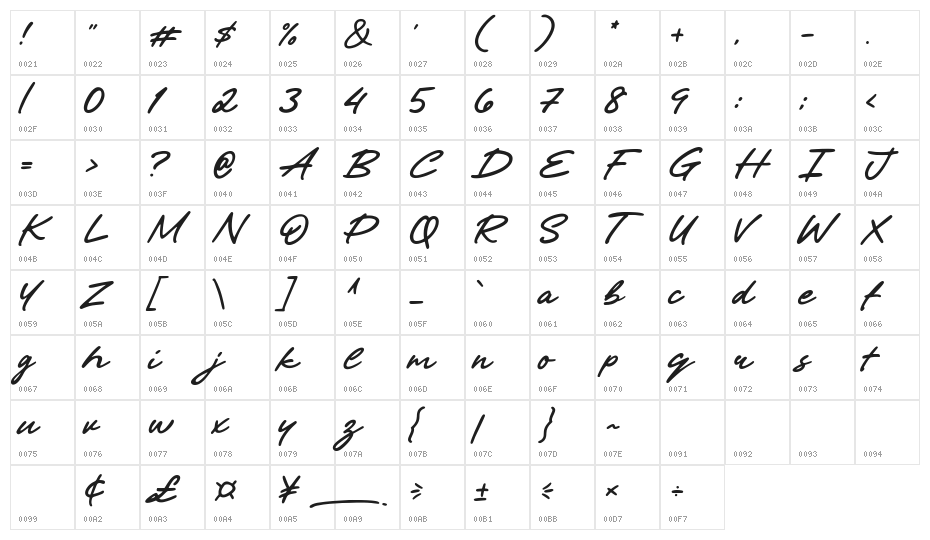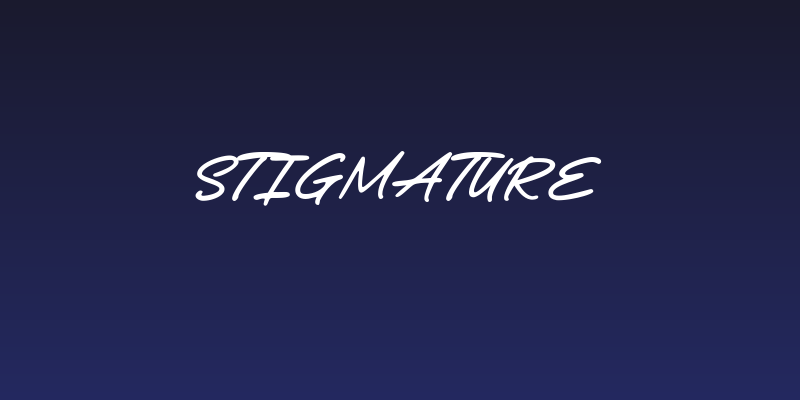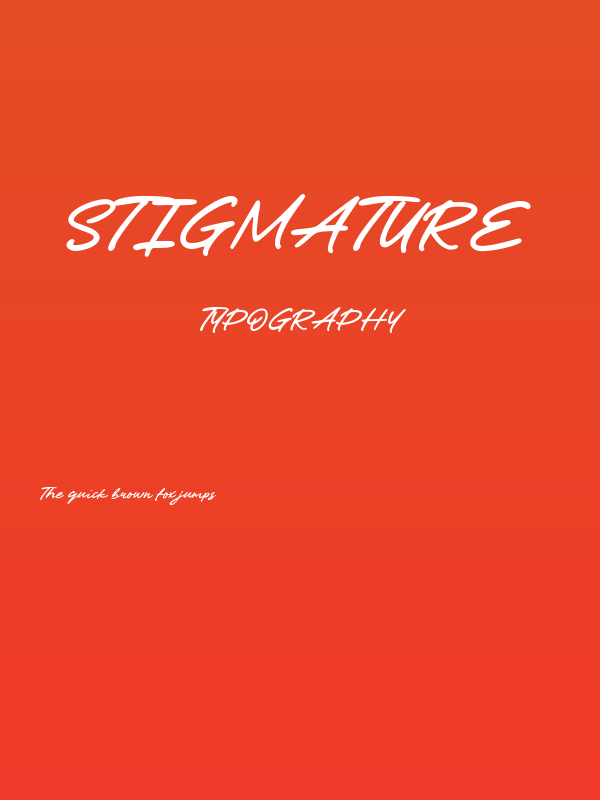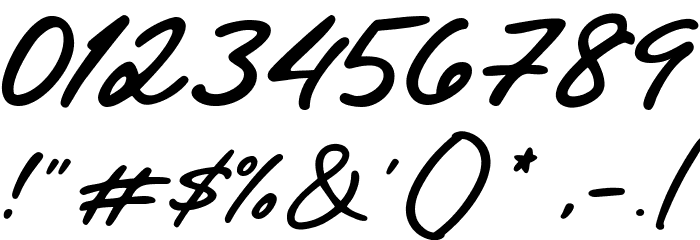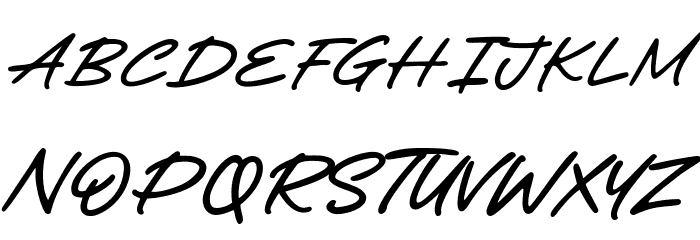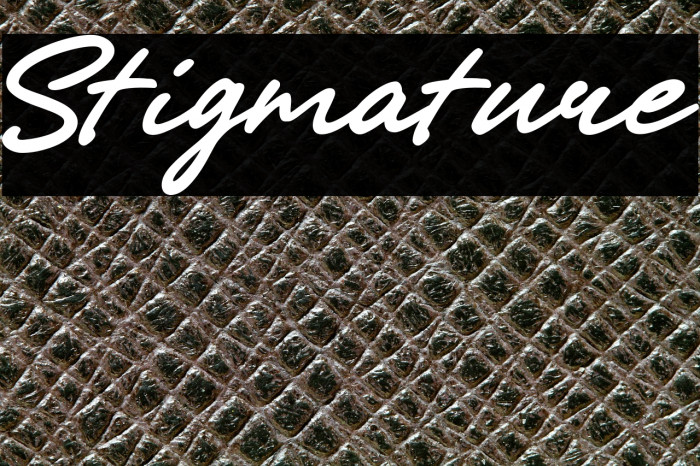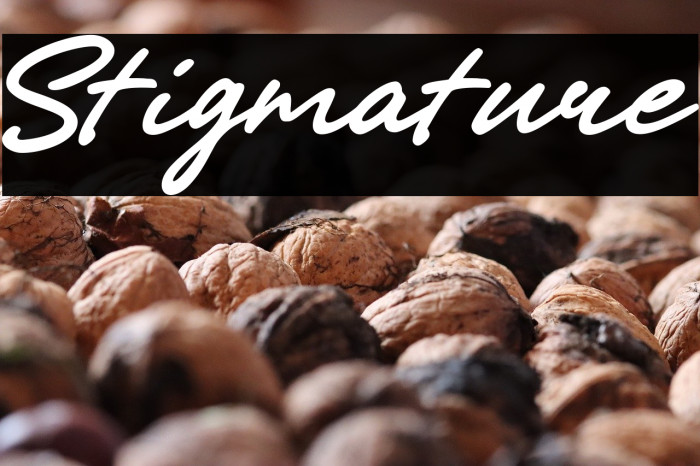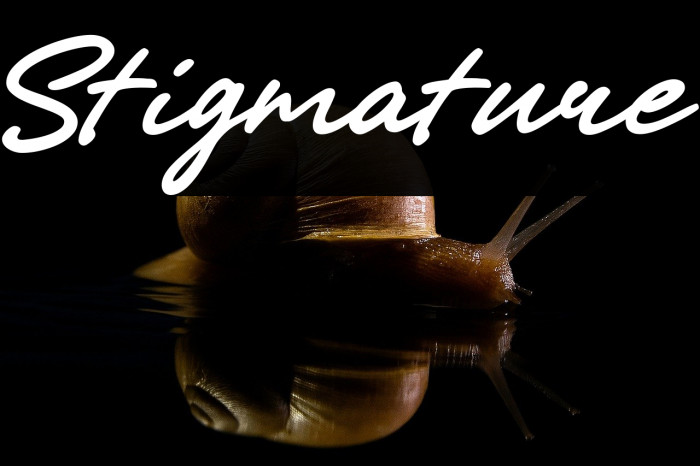
Stigmature Font
Stigmature Description
This font exudes a dynamic and fluid style, characterized by its cursive and handwritten appearance. The letters are connected in a smooth, flowing manner, giving it a natural and personal touch. The strokes are consistent in thickness, providing a balanced and harmonious look. The uppercase letters maintain a sense of elegance, while the lowercase letters are more playful and casual. Numbers and special characters are designed to complement the overall aesthetic, ensuring versatility across different uses. The font's style is both modern and timeless, making it suitable for a variety of design projects.
| Proposed Projects | Ideal for wedding invitations, personal branding, greeting cards, and creative projects that require a personal touch. |